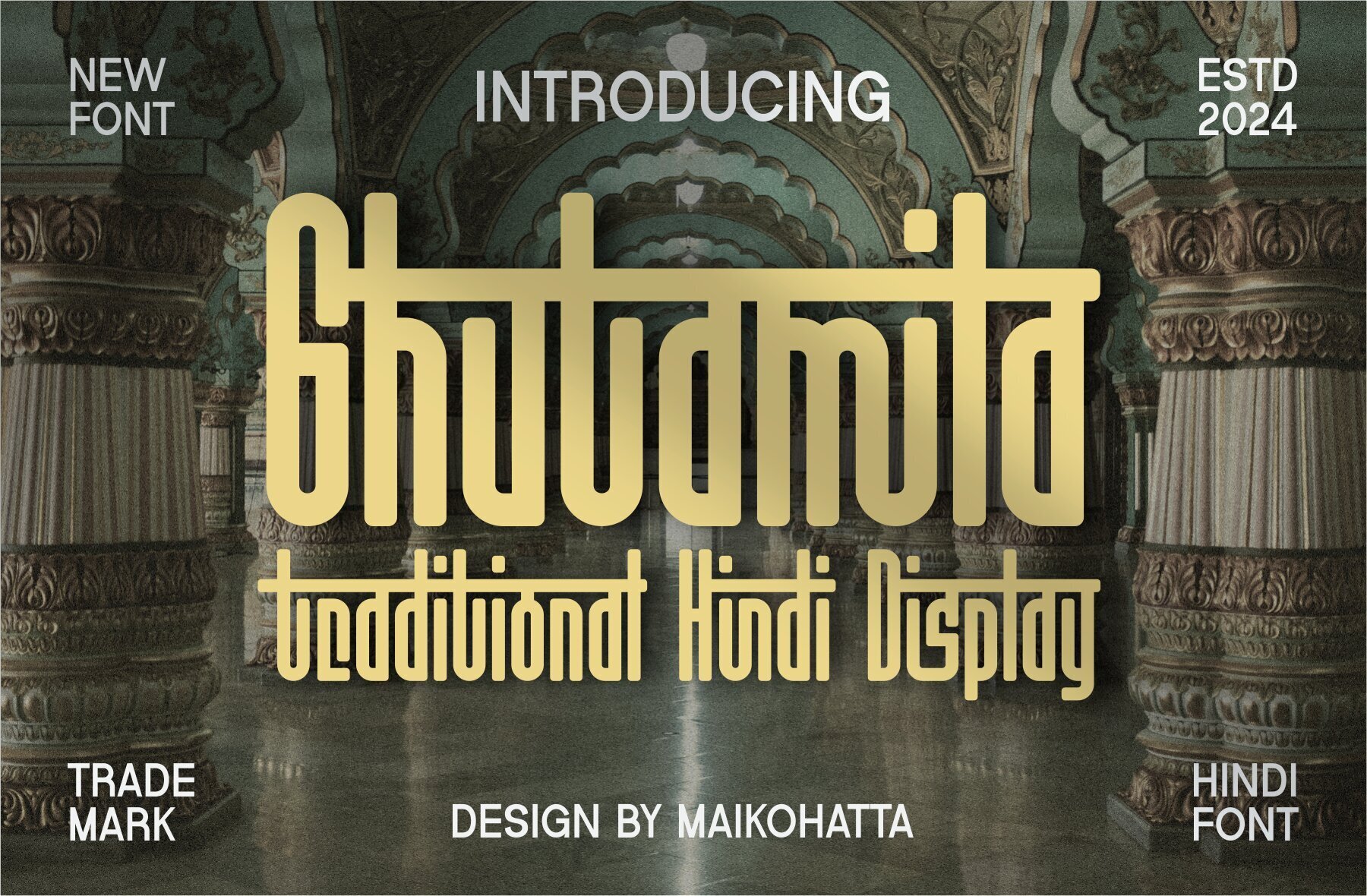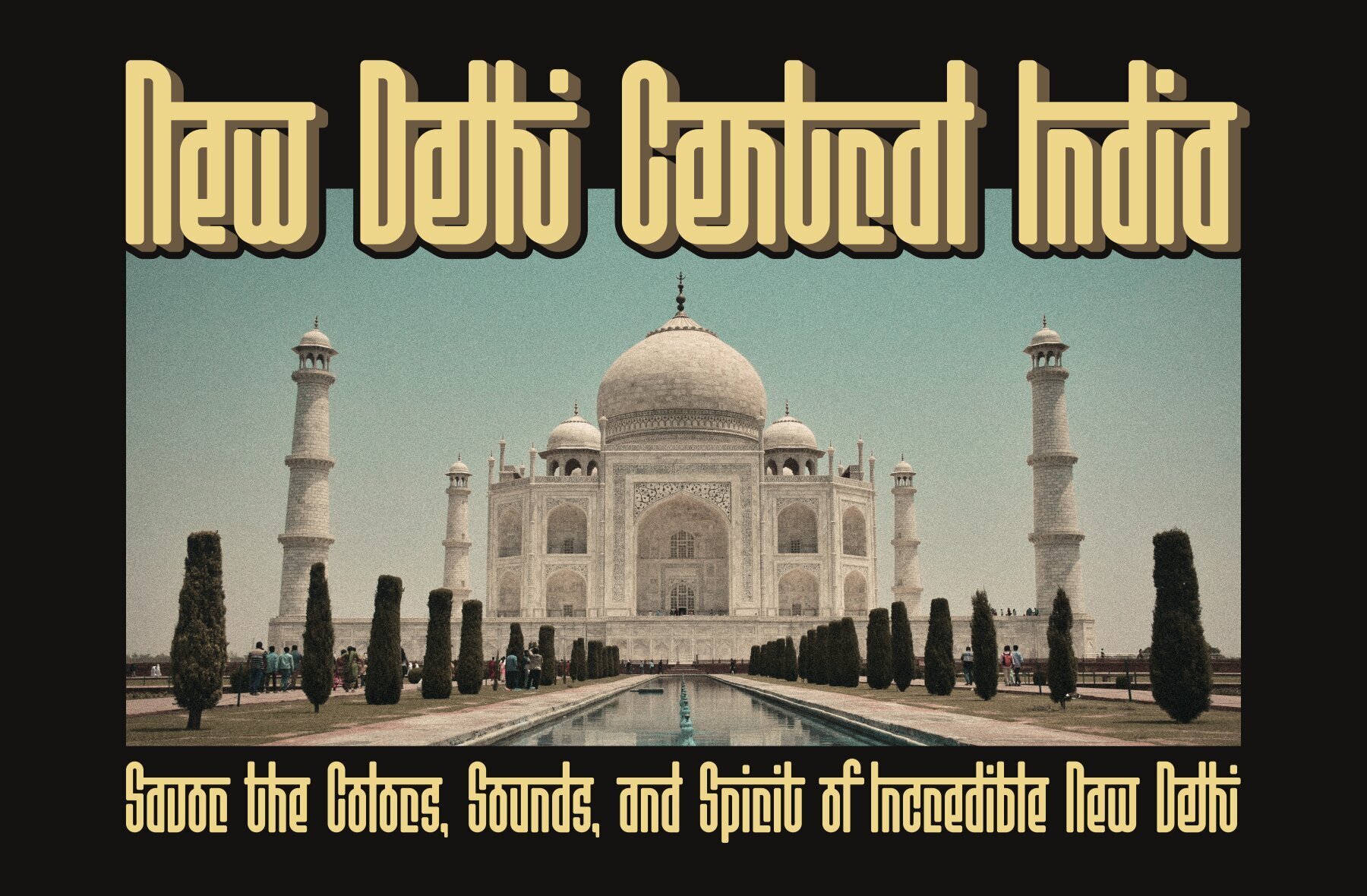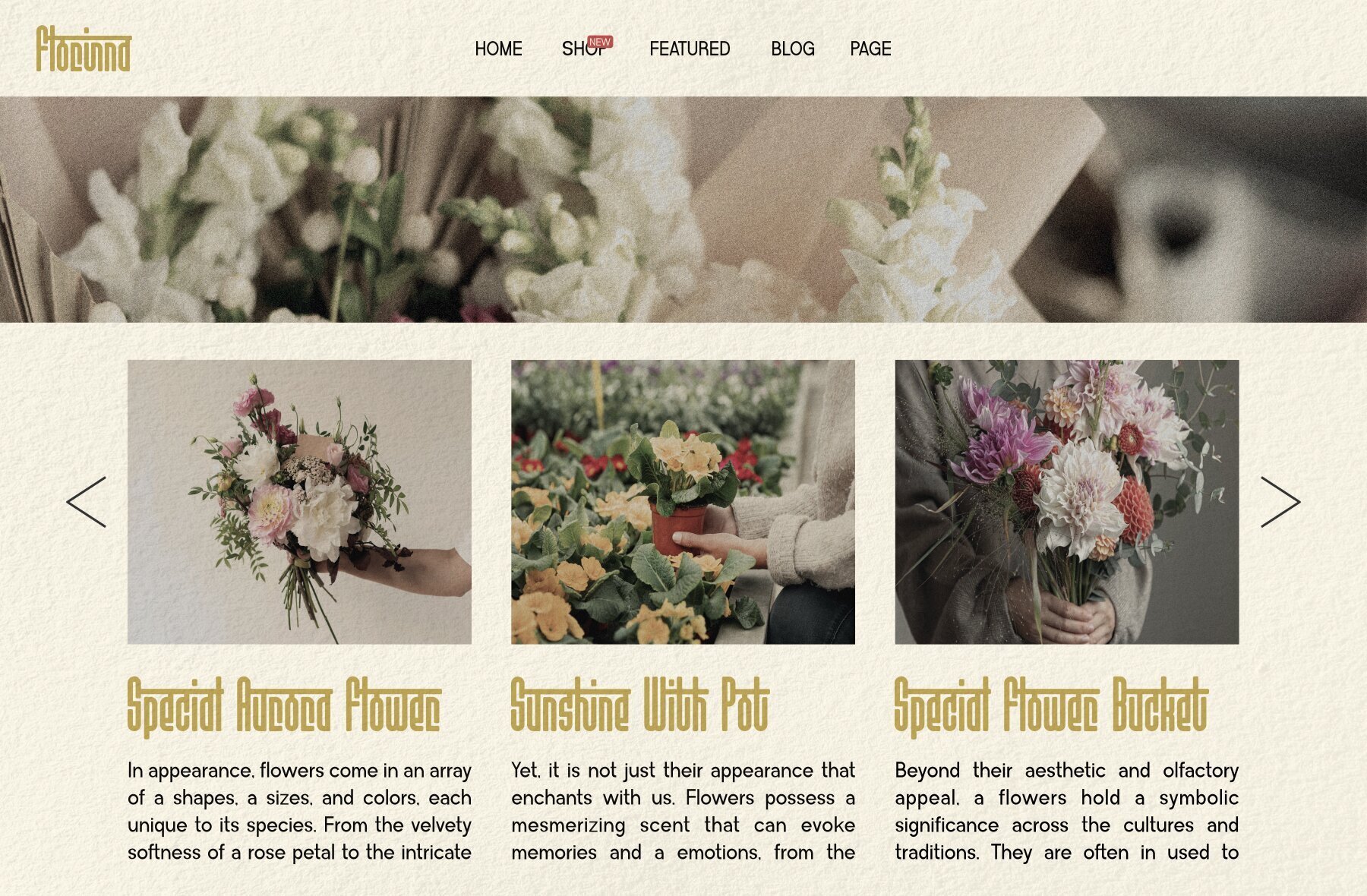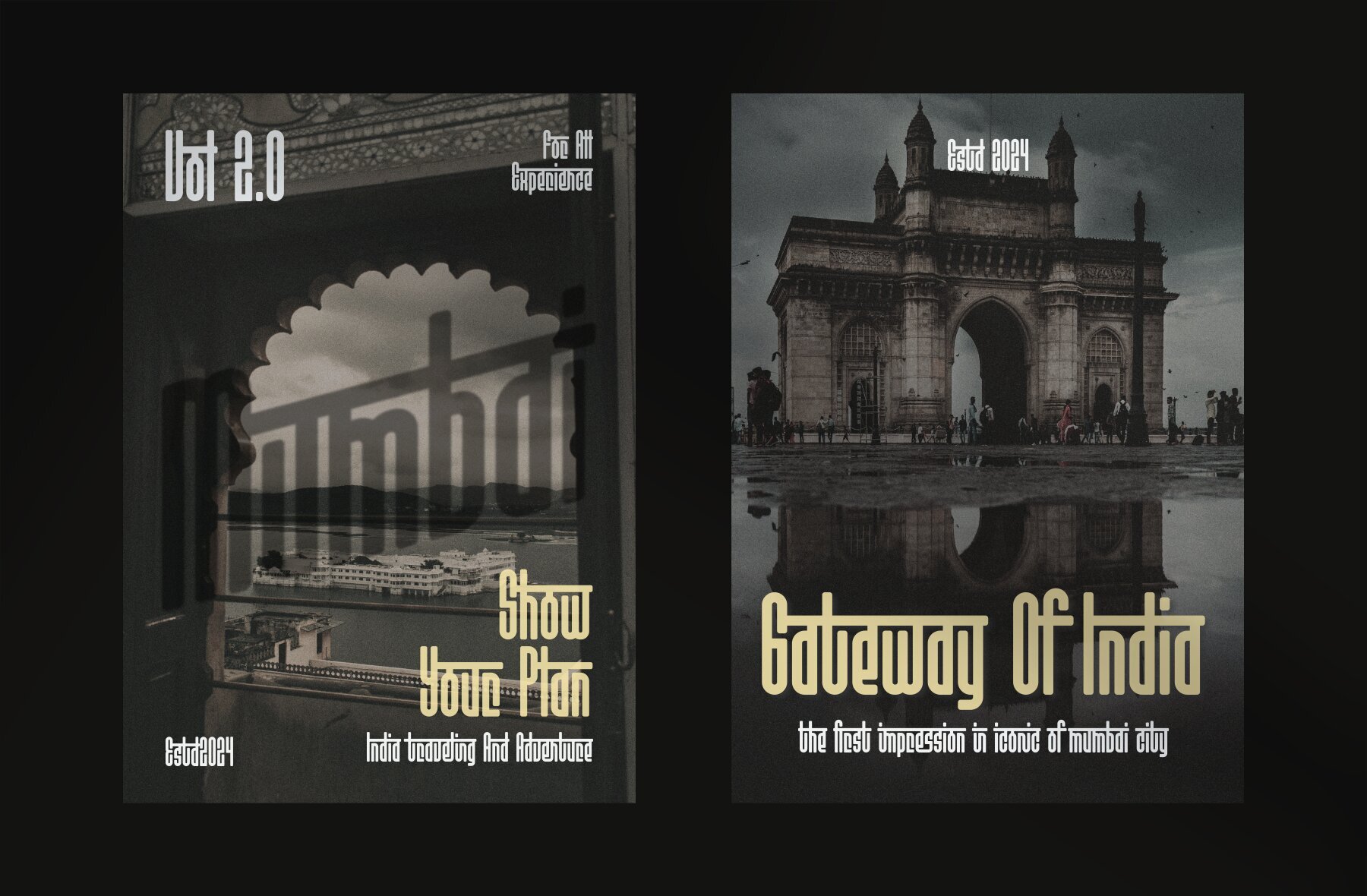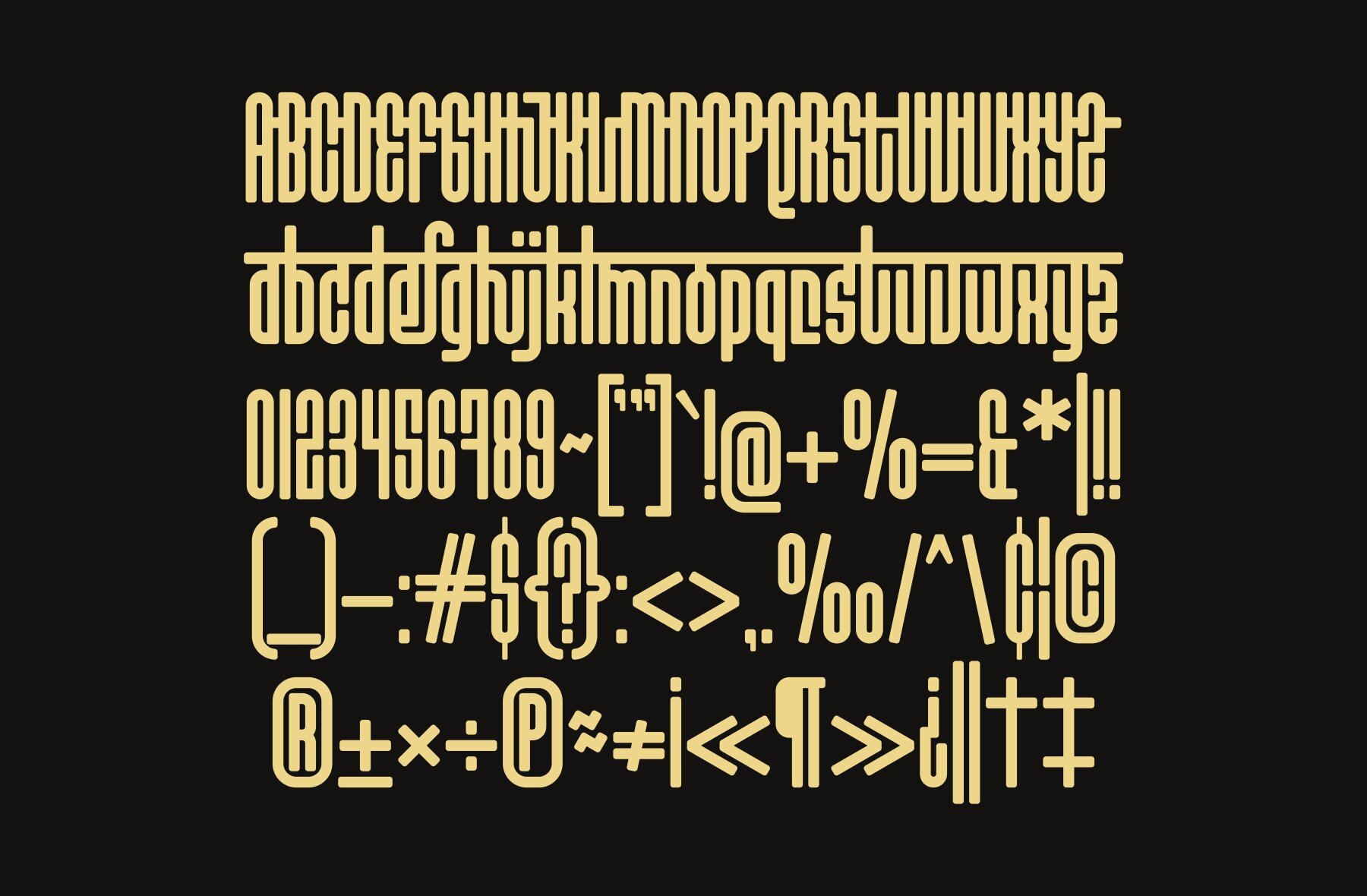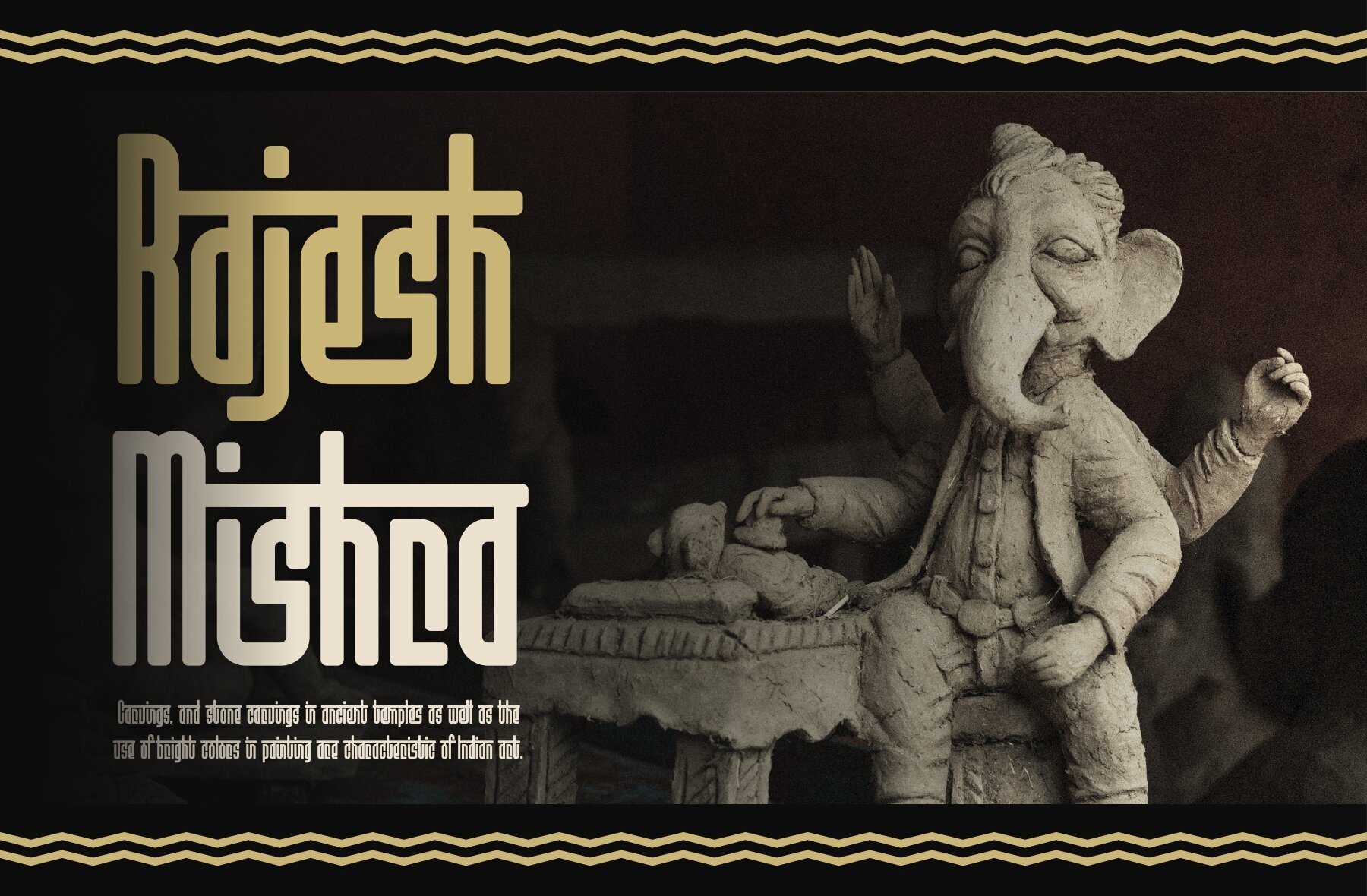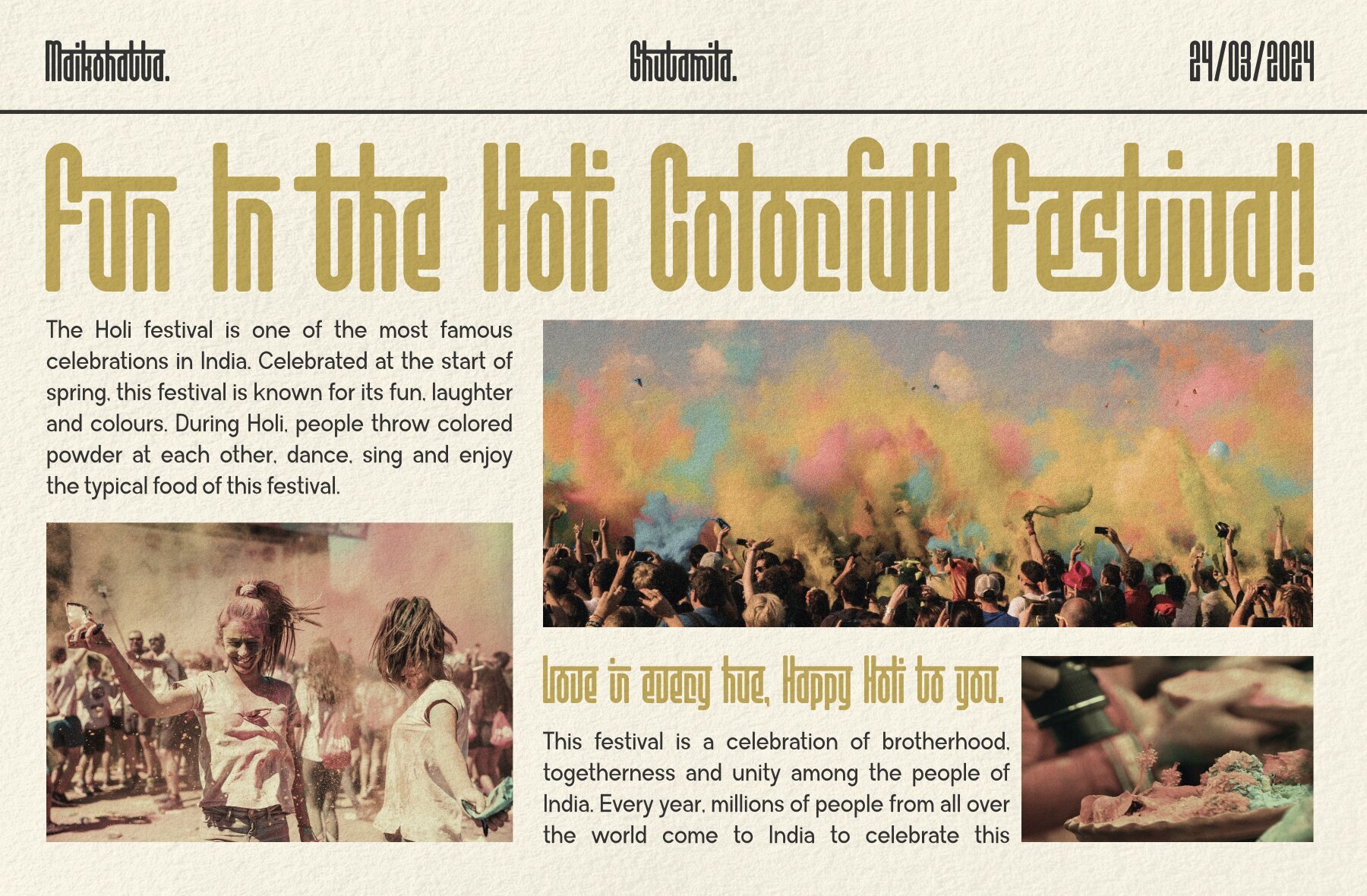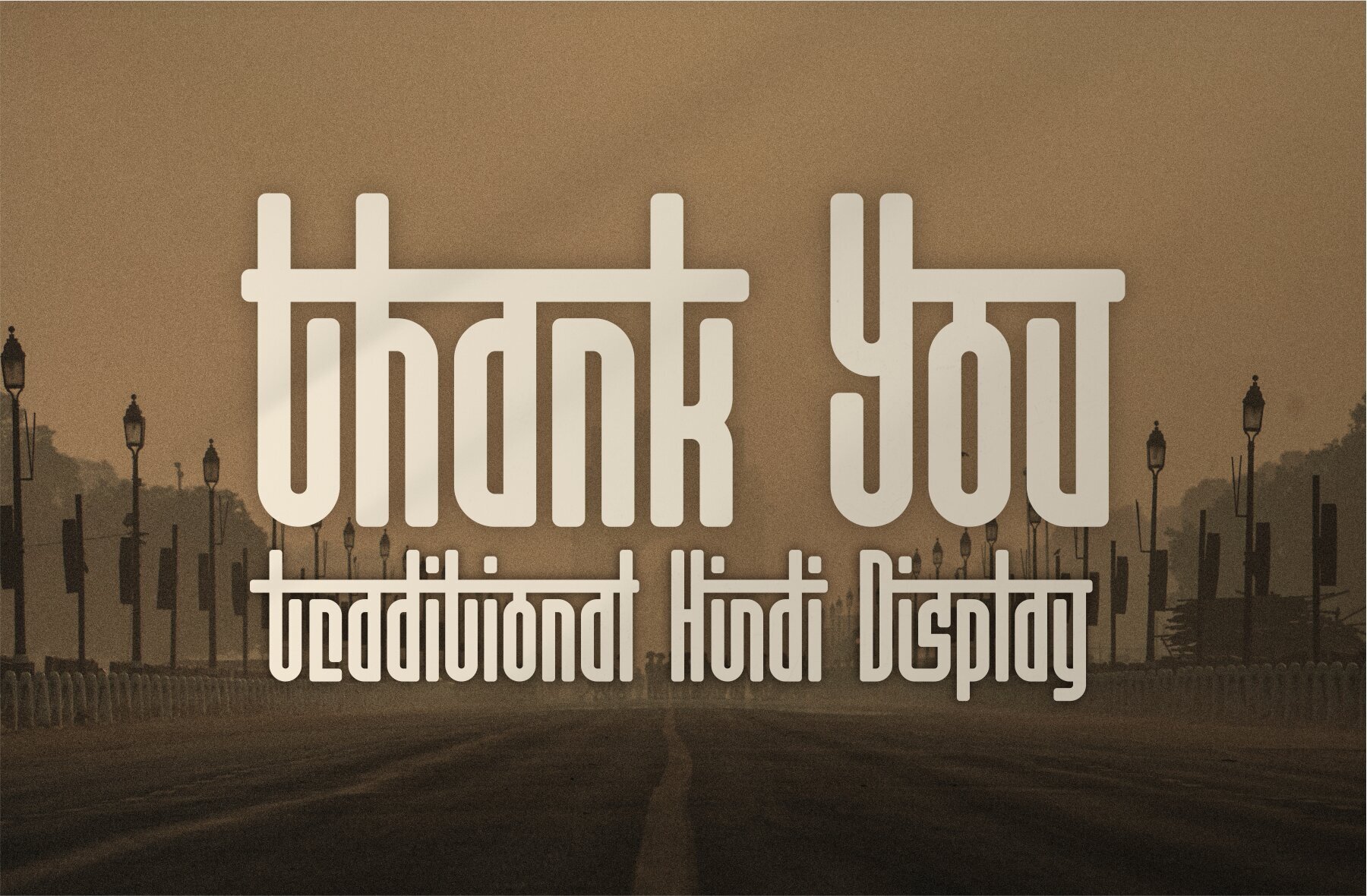
Ghutamila Font
Ghutamila Regular
This bold, sans-serif typeface features a modern and geometric design with heavy, monolinear strokes that convey a strong, dynamic presence. Its solid and blocky structure makes it ideal for impactful headlines and display purposes. The typeface exudes energy and simplicity, boasting high legibility which makes it versatile for both print and digital mediums, appealing for trendy and urban graphic designs.